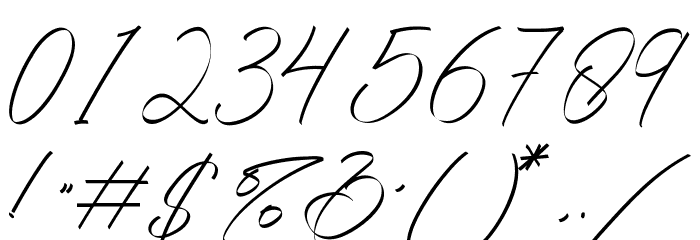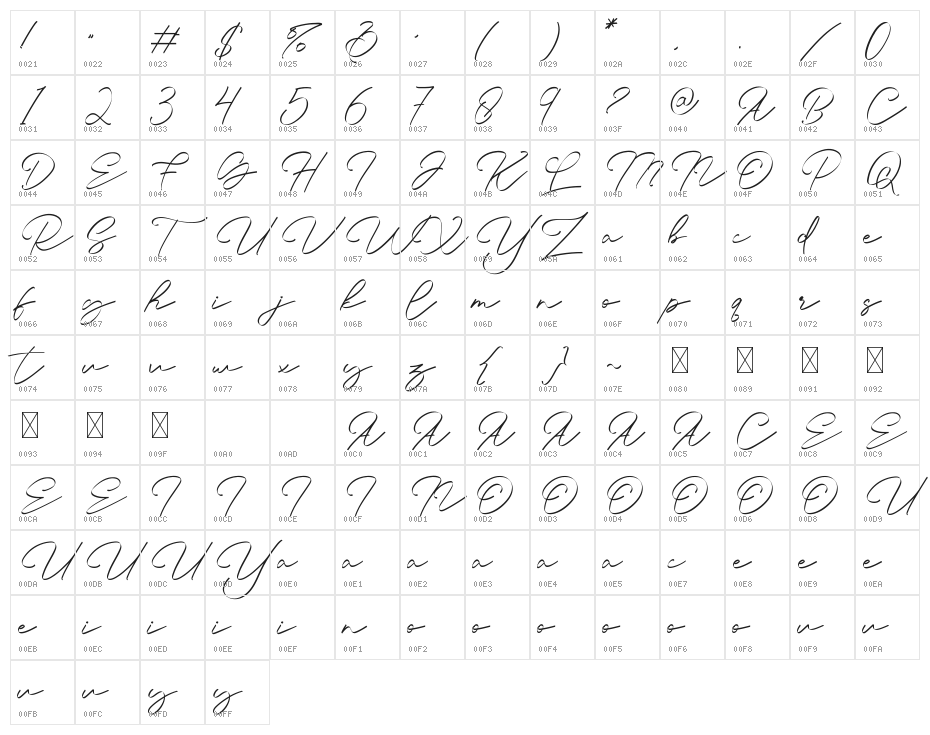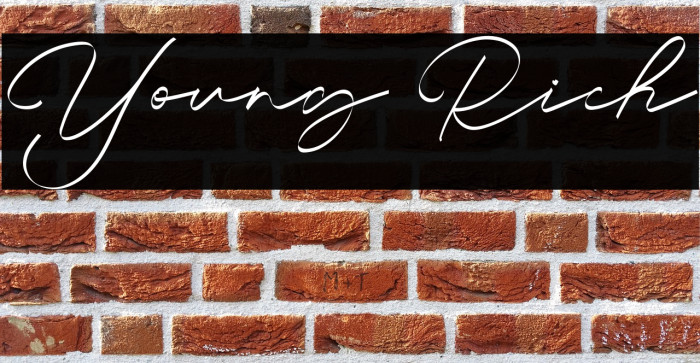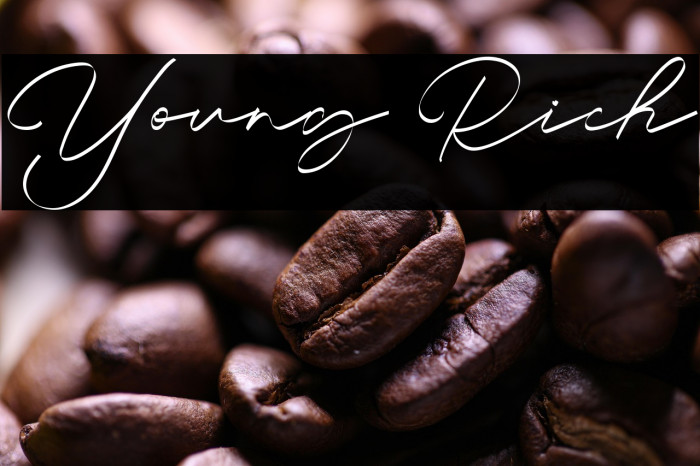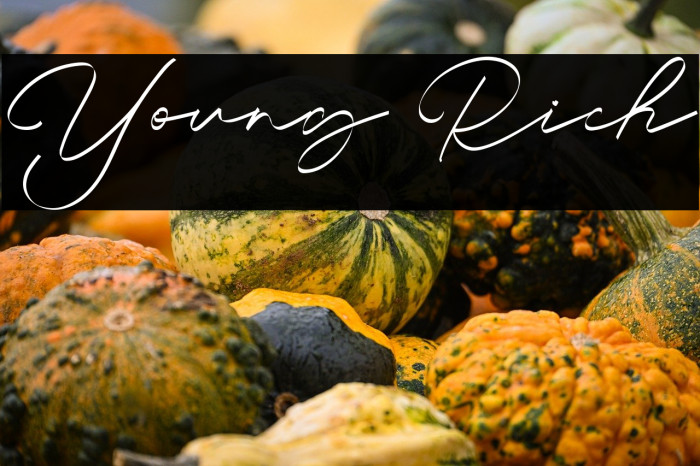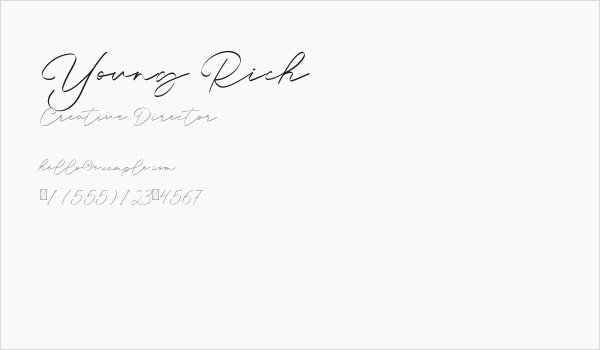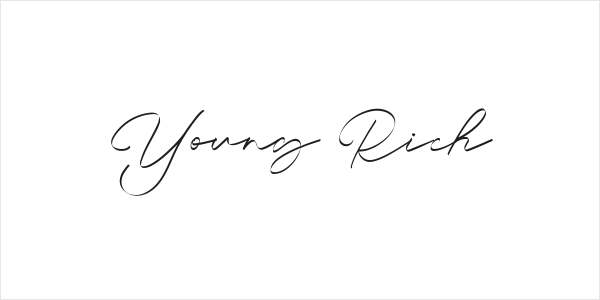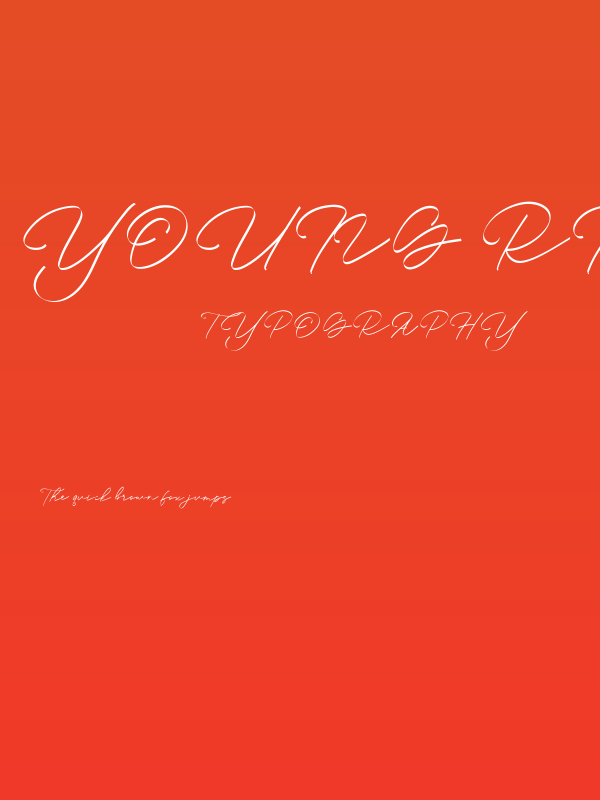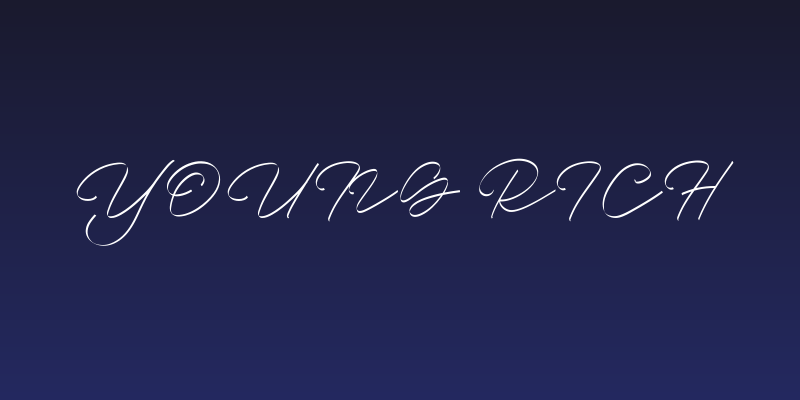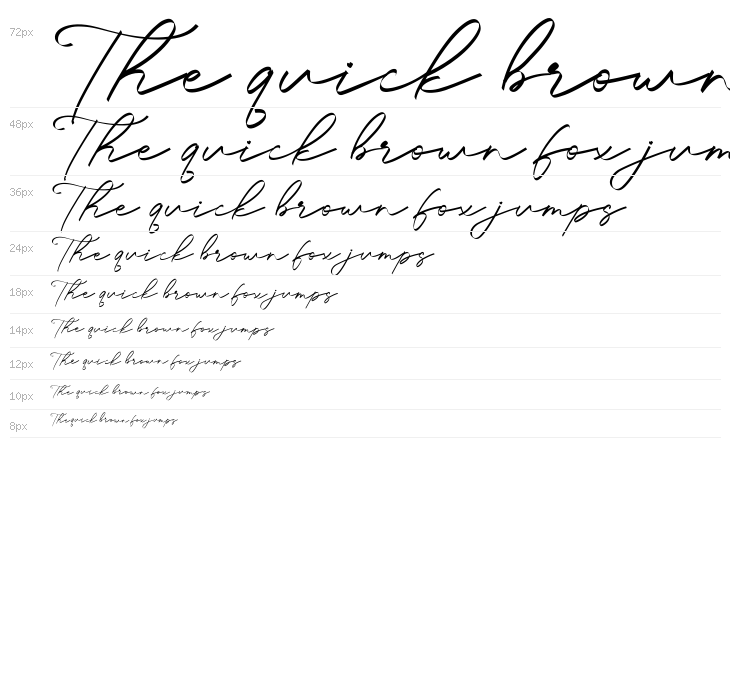
Young Rich Font
Young Rich Description
This font exudes a sophisticated and elegant script style, characterized by its fluid, cursive strokes that mimic the natural flow of handwriting. The uppercase letters are gracefully elongated, while the lowercase letters maintain a consistent slant, enhancing the overall fluidity. The numerals and special characters are crafted with the same attention to detail, ensuring a cohesive appearance across all glyphs. The font's delicate lines and smooth curves make it ideal for projects that require a touch of elegance and personal flair.
| Use Case | Logos, Invitations, Personal Correspondence |
| Proposed Projects | Ideal for wedding invitations, elegant branding, personal stationery, and artistic projects requiring a handwritten touch. |